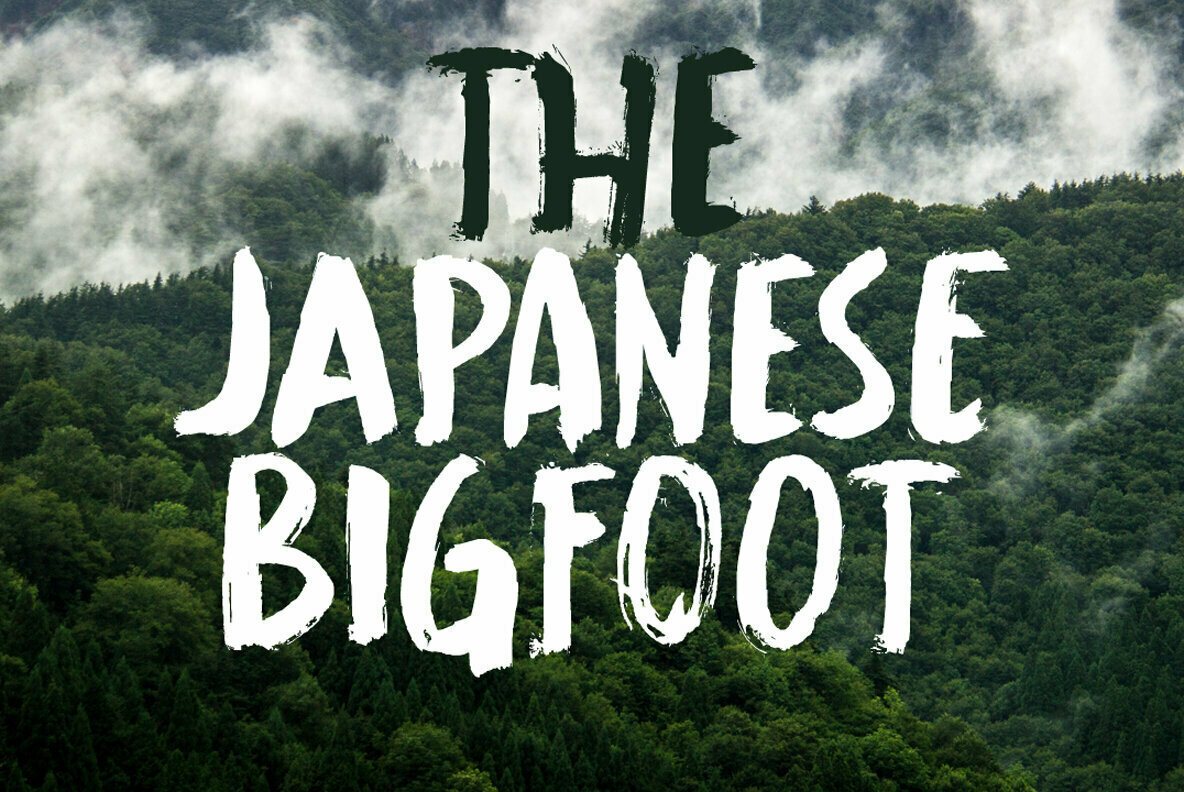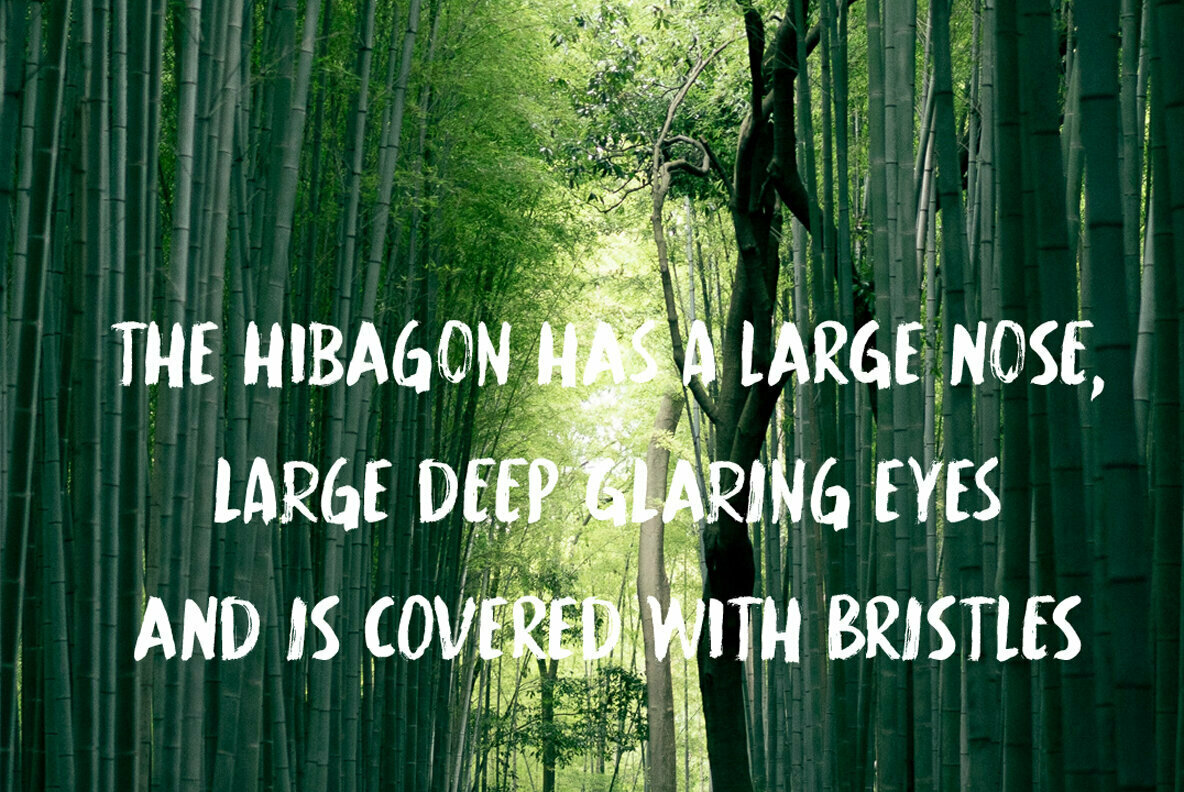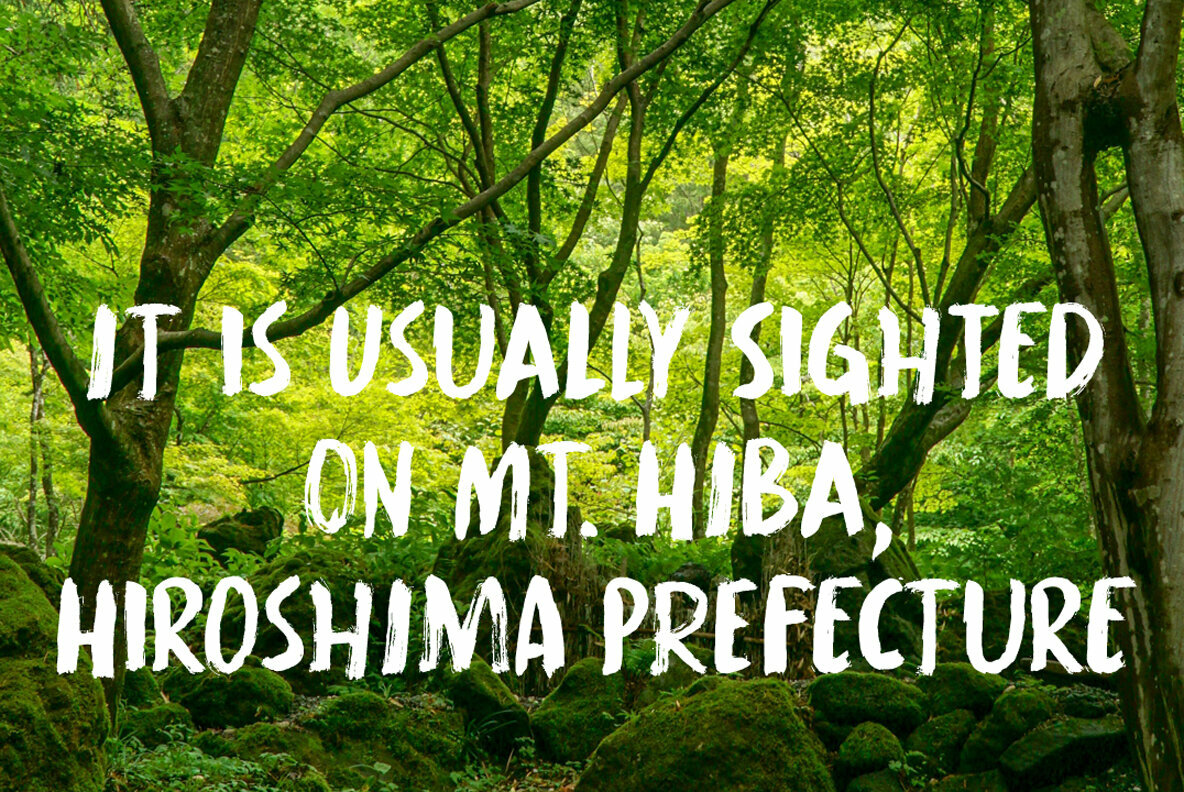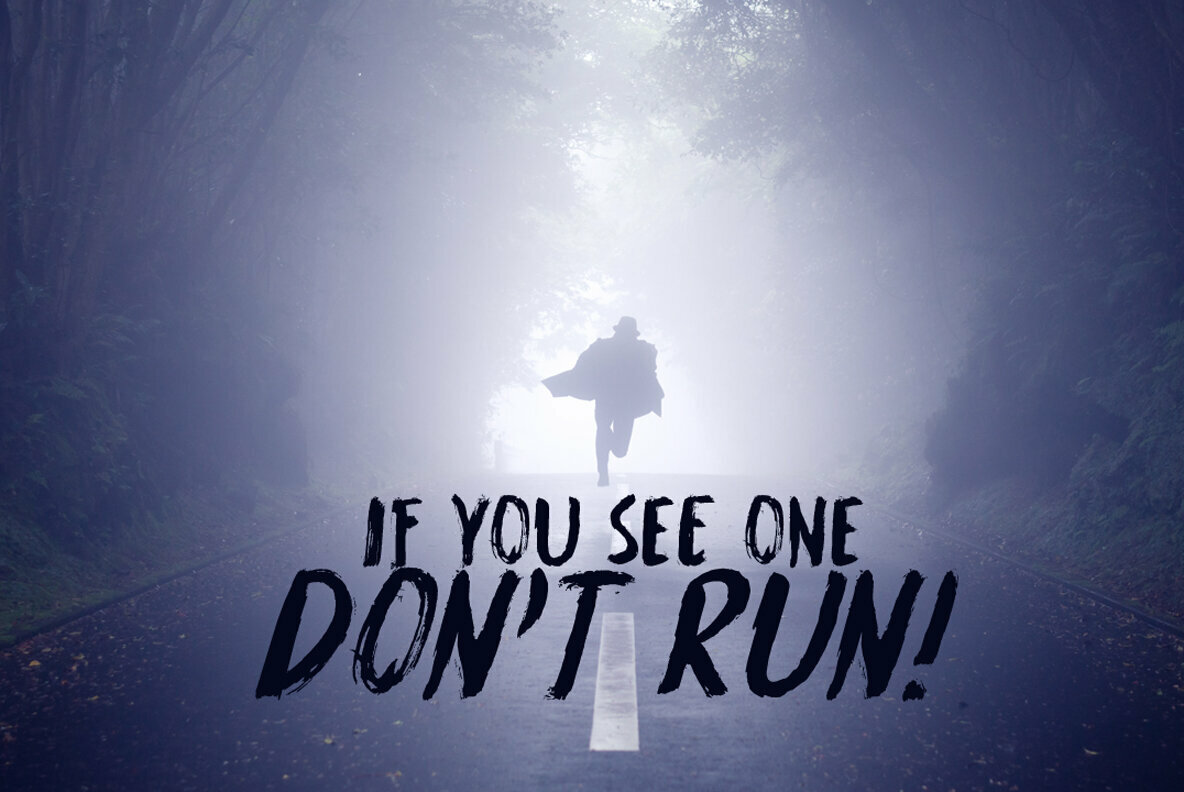
Hibagon 1
Hibagon is the Japanese equivalent of the Yeti from the Himalayas, or Bigfoot from North America. It is usually sighted on Mt. Hiba (Hiroshima prefecture), hence the name.
I have never seen Hibagon myself, even though I have visited Hiroshima several times.
Hibagon font is a nice, hand painted, all caps font with a mythical feel to it. It probably won’t scare you, but it will look good on anything that needs a bit of brushwork, or a bit of roughness.